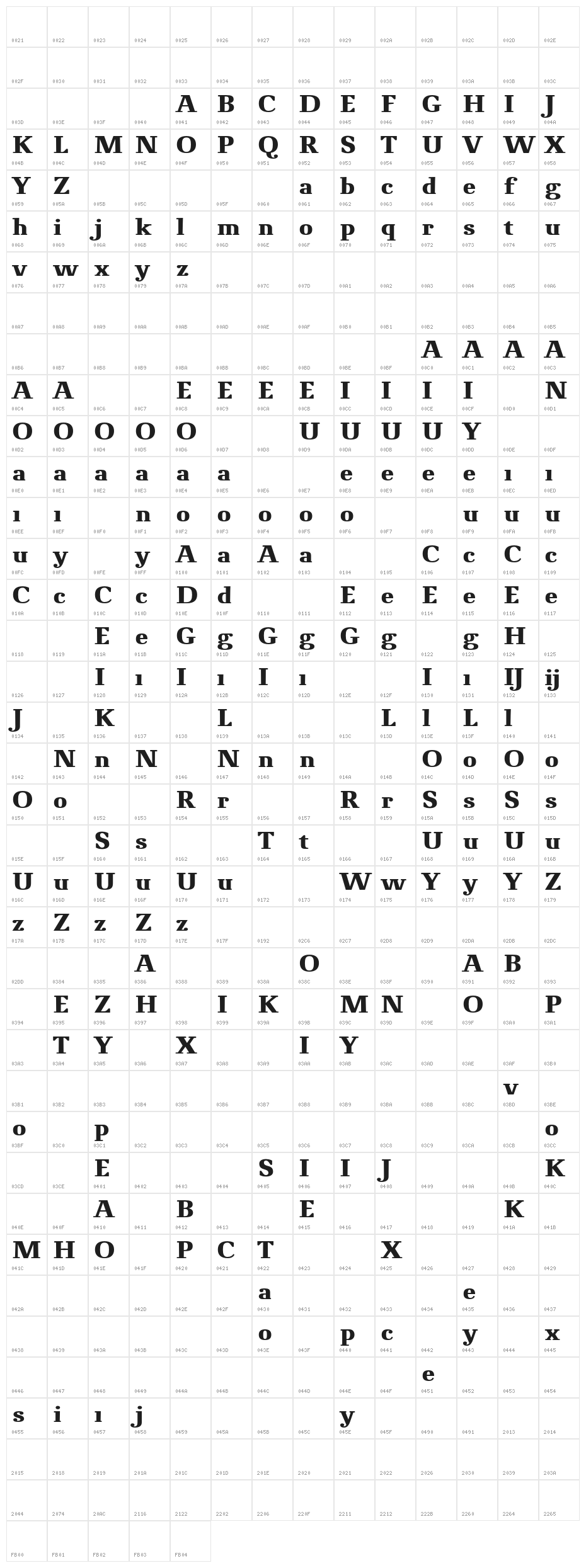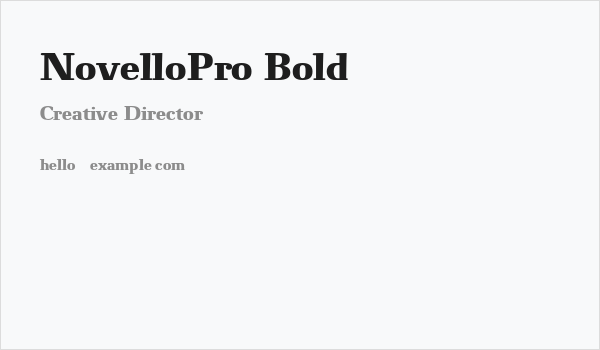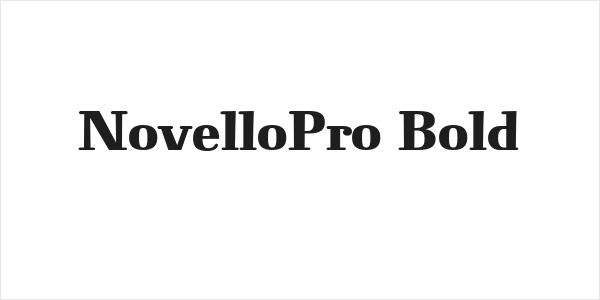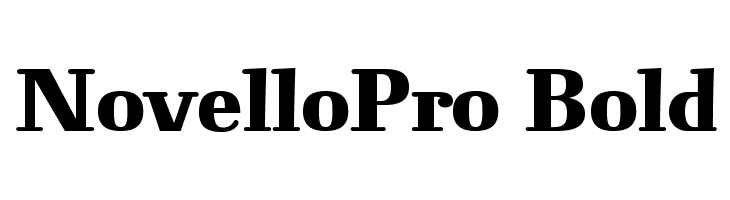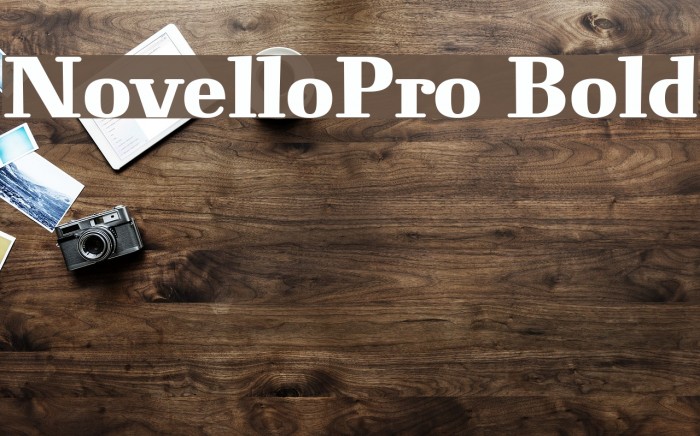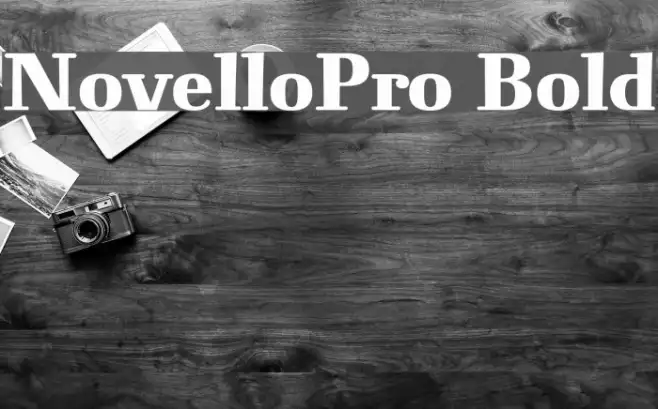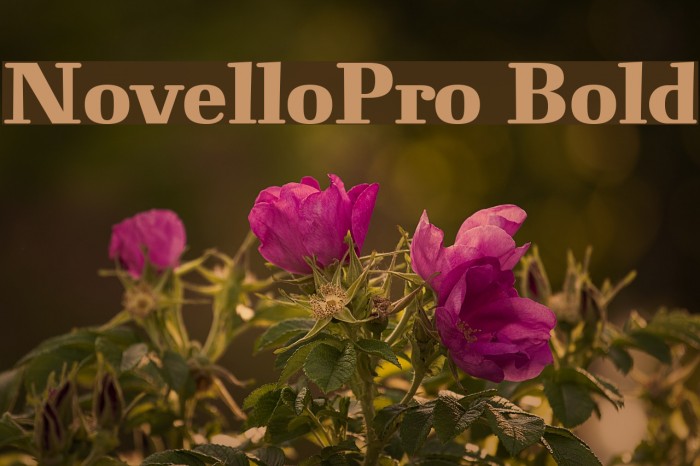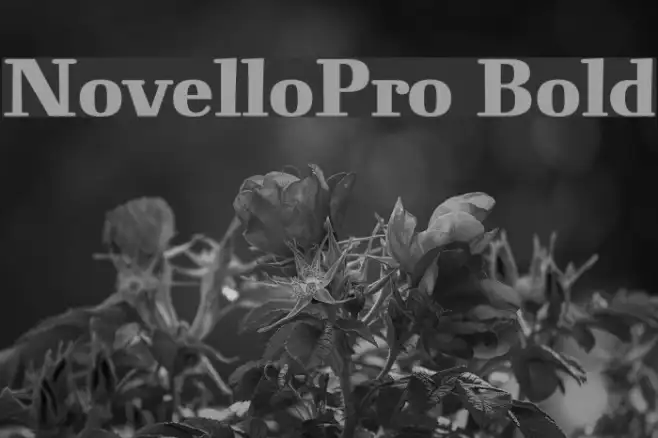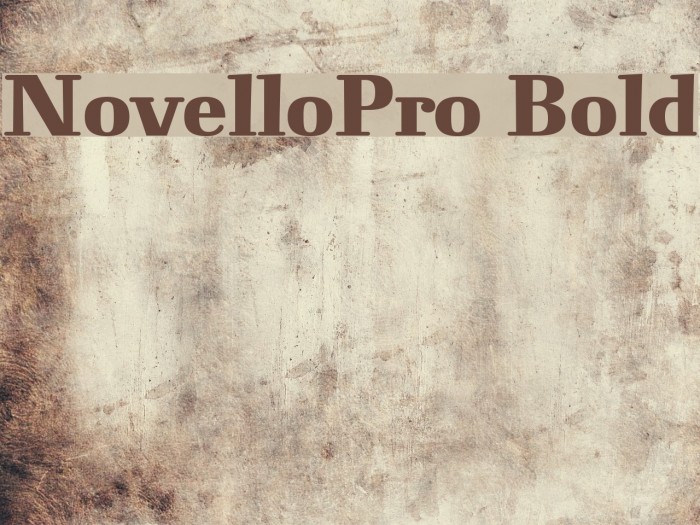
NovelloPro-Bold Font
NovelloPro-Bold Description
This font features a bold and robust serif style, characterized by strong, thick strokes and pronounced serifs that give it a classic and authoritative appearance. The uppercase letters are tall and commanding, while the lowercase letters maintain a consistent weight, providing a balanced and harmonious look. The numerals are clear and legible, making them suitable for various applications. The special characters are well-defined, adding versatility to the font's use. Overall, this font exudes a sense of tradition and reliability, making it ideal for projects that require a touch of elegance and formality.
| Overall Style | Classic |
| Use Case | Headlines, Logos, Editorial design |
| Proposed Projects | Ideal for book covers, editorial design, branding, and formal invitations. |